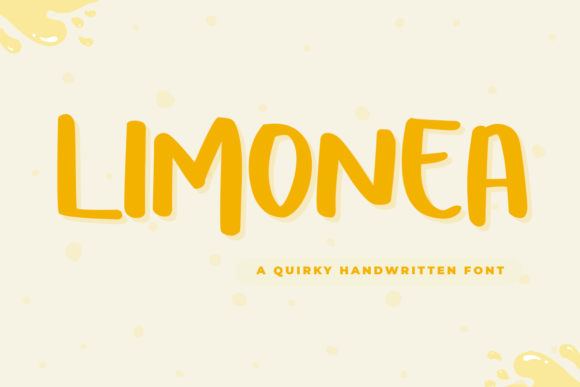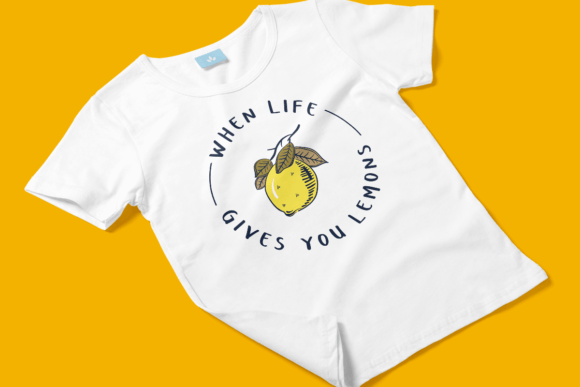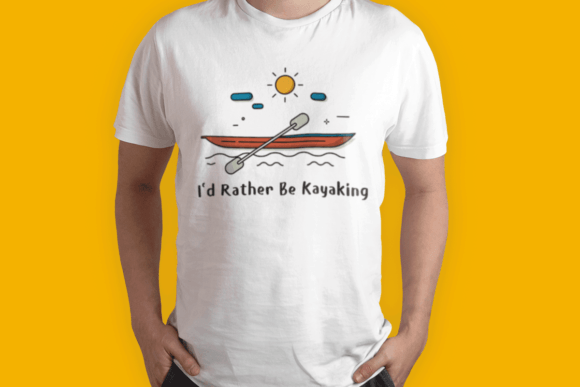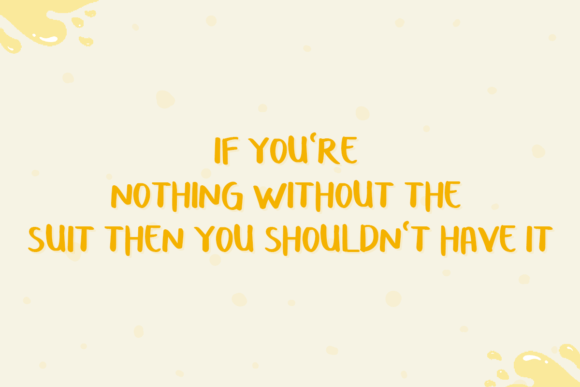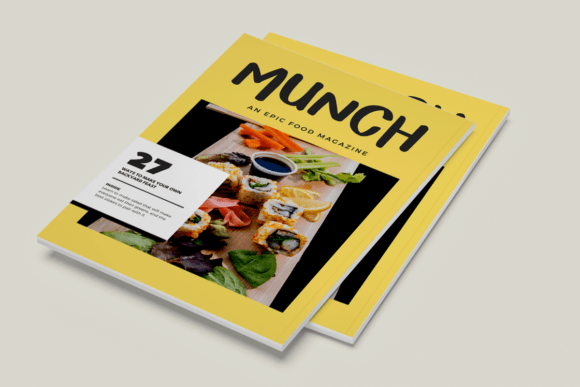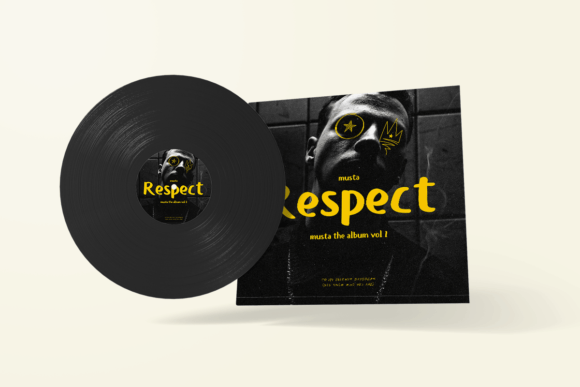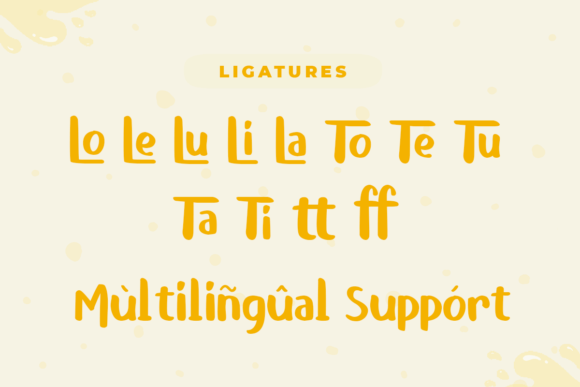
Limonea Font
About Limonea Font
Limonea stands as an exquisite embodiment of charm and playfulness, a handwritten font meticulously designed to elevate your creative endeavors. Tailored for cards, invitations, tags, and various print designs, the Lemonea font effortlessly captures attention with its quirky yet beautiful style, radiating a cute and cheerful aesthetic that adds a touch of whimsy to any project.
What sets Limonea apart is not just its visual appeal but also its functional prowess. The font is PUA encoded, a feature that proves to be a game-changer for creators. This encoding style opens the gateway to a vast array of amazing glyphs and ligatures, providing users with a seamless experience in navigating and utilizing the font’s full potential. It empowers designers to infuse their projects with unique characters and artistic flourishes, making each creation truly one-of-a-kind.
Whether you’re in the midst of crafting invitations for a special event, designing tags for a product, or curating prints that demand attention, Limonea rises to the occasion. Its versatility shines through, adapting to various design contexts while maintaining its signature charm. The font’s adorable handwritten style creates a visual language that resonates with audiences seeking a blend of elegance and whimsicality.
As you delve into the world of Limonea, you’ll discover a font that transcends the conventional, offering a delightful escape into a realm where each stroke tells a story of creativity and imagination. The careful curation of this font reflects an understanding of the nuances of design, acknowledging the need for a typeface that not only looks appealing but also communicates a sense of joy and warmth.
In essence, Limonea is more than just a font; it’s a design companion that adds a unique character to your projects. Its 400 words may be a mere representation of its vast potential, as it beckons creators to explore the endless possibilities it brings to the table. Whether you’re a seasoned designer or a novice embarking on a creative journey, Limonea is poised to be a source of inspiration, turning every design endeavor into a delightful expression of artistry and charm.